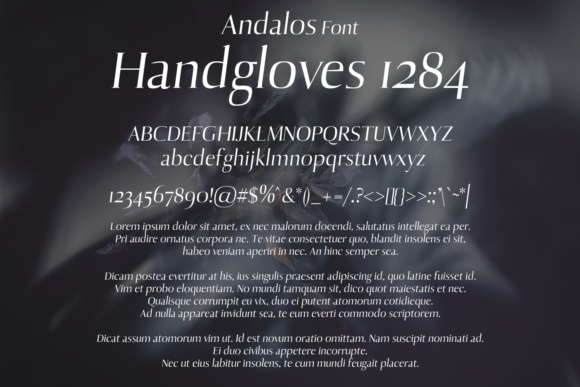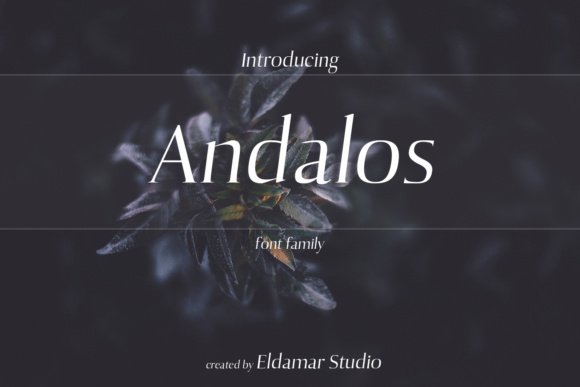
About Andolas Font
Andolas is a wonderful font with a unique, detailed and handmade look. Andolas looks amazing in all caps with a wide-set spacing and is beautiful on it’s own. Andolas is completely timeless and perfect for giving a elegant feel to your design. Perfect for gorgeous logos, displays, headers, invitations, save the dates, weddings, titles, web layouts and branding, etc.